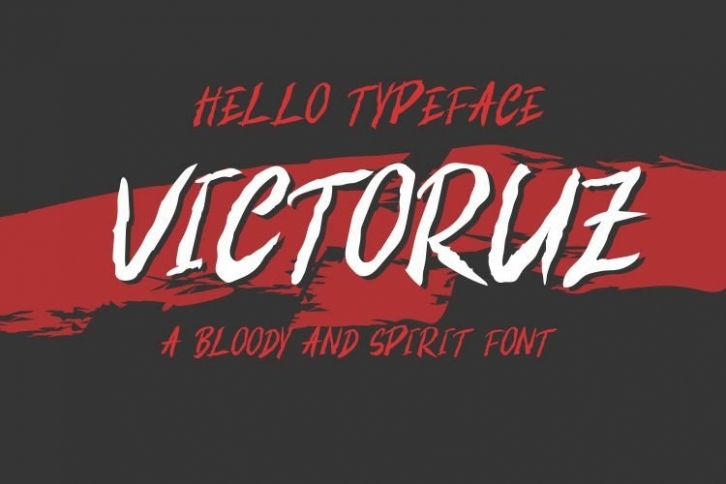
VICTORUZ BLOODY is a great font that was designed by AKSATA studio. Imagine the amount of combinations you can create using this font! The archive is 9.6 MB and it was released on April 11, 2021. VICTORUZ BLOODY looks beautiful on wedding invitations, greeting cards, logos, posters, labels, t-shirt designs, logos, business cards and is perfect for use in ink or watercolor works, fashion, magazines, packaging and food menus, children's books and more!